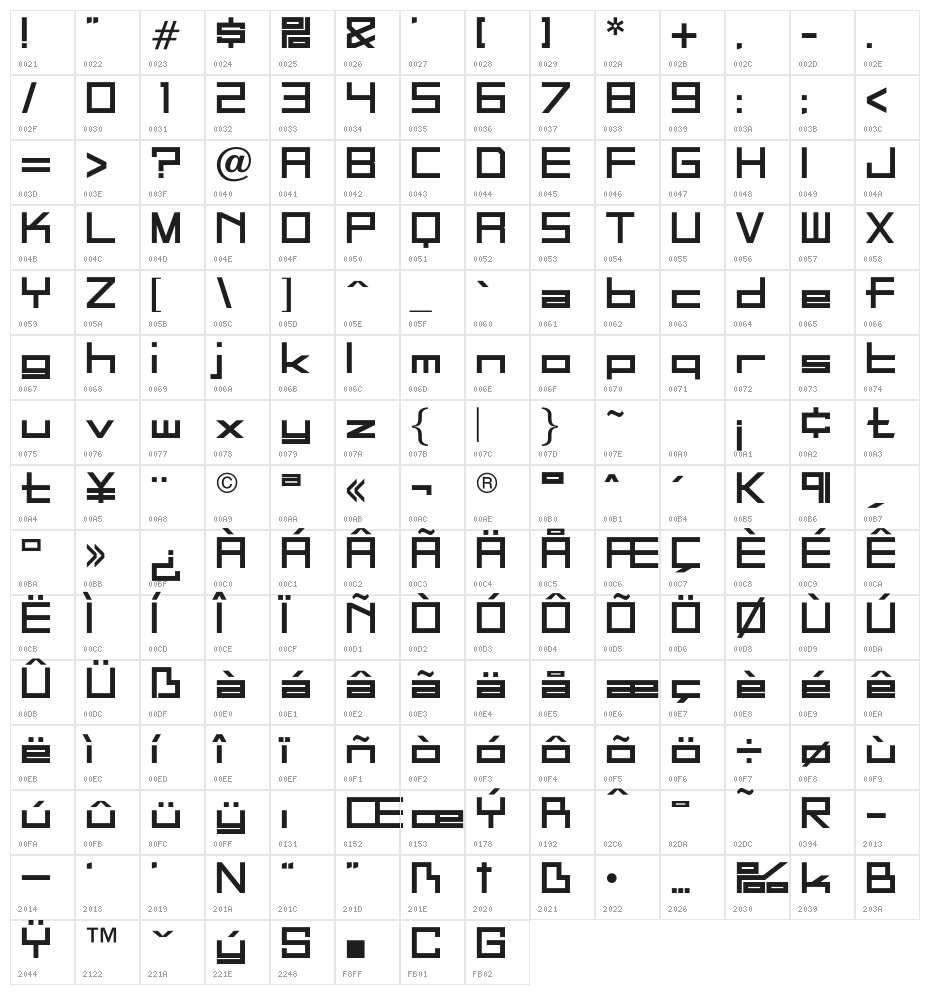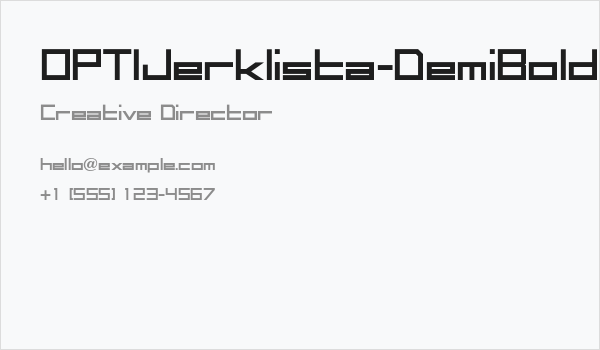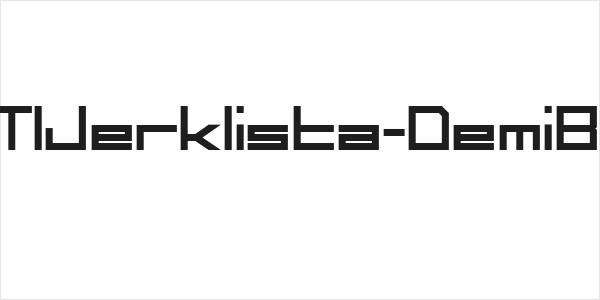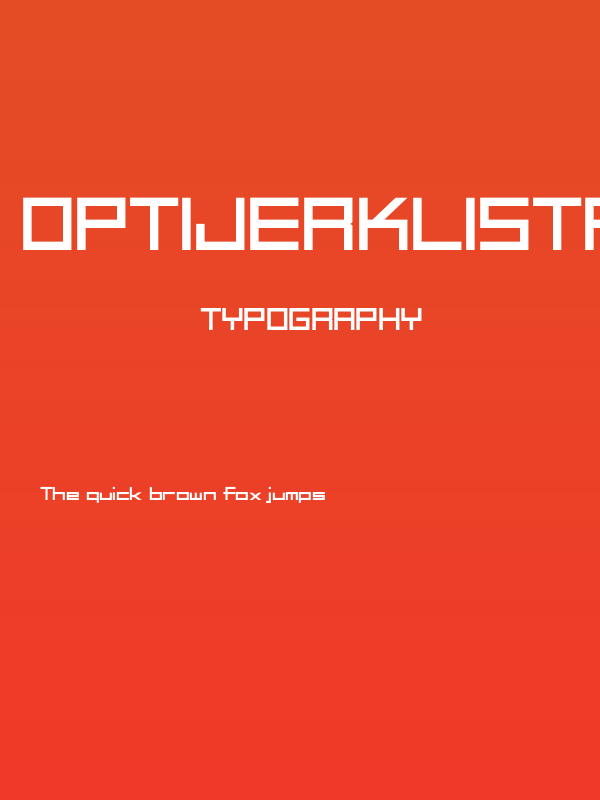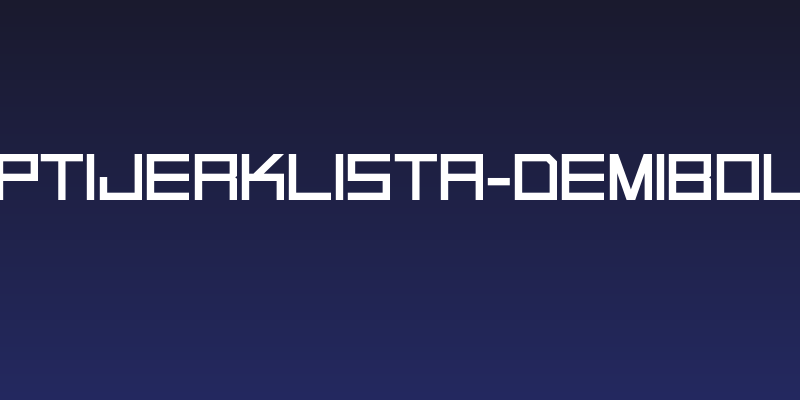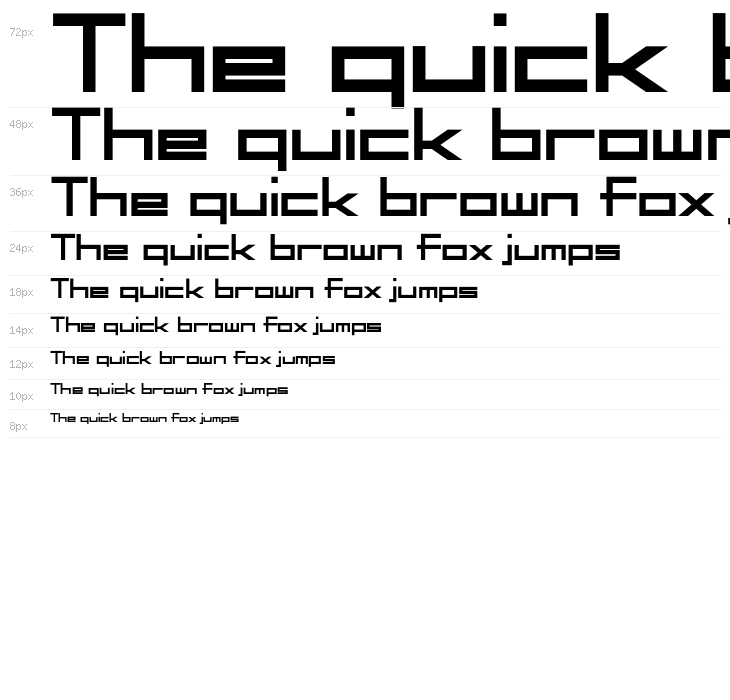
OPTIJerklista-DemiBold Font
OPTIJerklista-DemiBold Description
This font exhibits a bold, geometric style with a strong emphasis on angular shapes and straight lines. The characters are constructed with a uniform stroke width, giving it a monospaced appearance, although it is not strictly monospaced. The uppercase letters are particularly square and blocky, while the lowercase letters maintain a similar structure with slight variations to distinguish them. The numbers and special characters follow the same design principles, ensuring consistency throughout. This font's modern and futuristic aesthetic makes it suitable for digital and tech-related projects.
| Proposed Projects | Ideal for tech branding, digital interfaces, video game design, and futuristic-themed posters. |